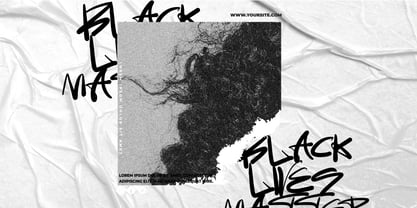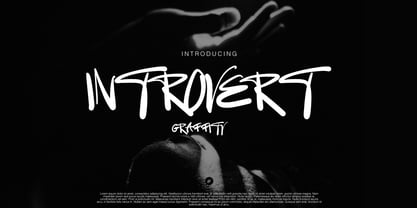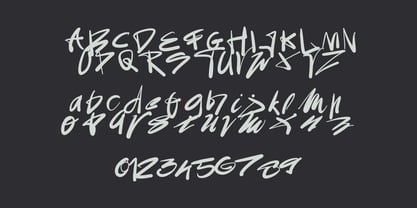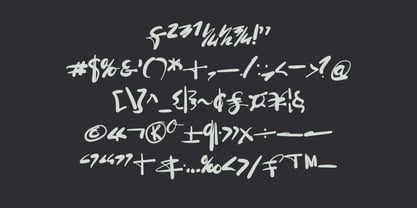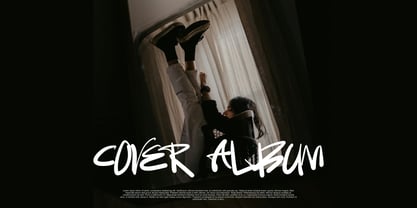
Introvert Graffity
by WAP Type
The Introvert Graffity Font Family was designed by Wahyu Aji Prasetyo and published by WAP Type. Introvert Graffity contains 1 styles. More about this family
Introvert Graffity Font
Graffiti fonts are typefaces inspired by street art, full of expression, color, and a freestyle. Their main characteristics include bold, striking, dynamic letterforms, often appearing like handwritten spray-painted text. This style reflects boldness, creativity, and freedom of expression.
Graffiti fonts are suitable for:
1. Urban or Hip-Hop Music Poster Design • Suitable for concerts, underground events, or street art festivals.
2. Streetwear Brand Logos • Often used by urban, skate, and hip-hop themed fashion brands.
3. Music Album Covers • Especially rap, hip-hop, punk, or reggae genres that want to appear bold and anti-mainstream.
4. Merchandise Design • Such as t-shirts, jackets, or accessories with a youthful and rebellious style.
5. Social Media & Digital Content • For creative content that wants to stand out and attract attention.
6. Digital Murals or Digital Art • Gives a wild, bold, and street-style impression.
Designers: Wahyu Aji Prasetyo
Foundry: WAP Type